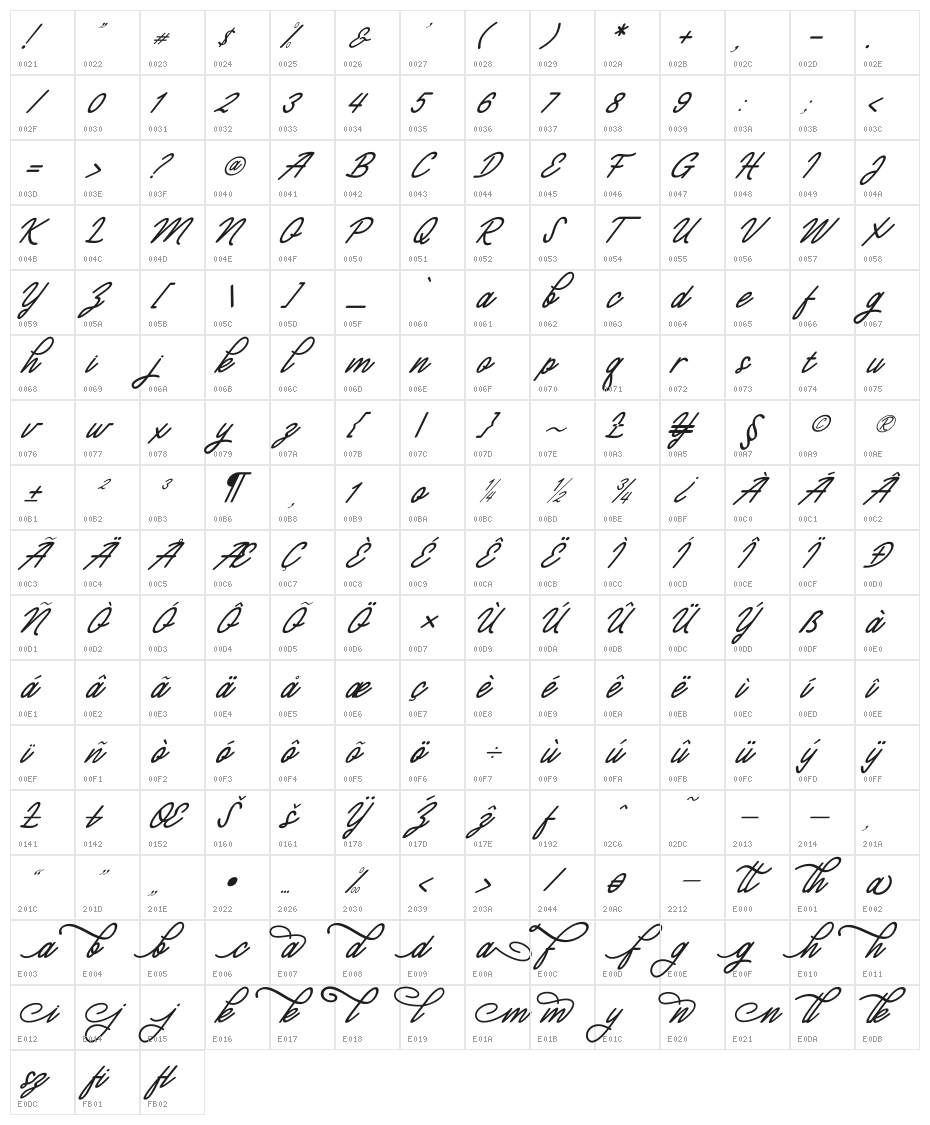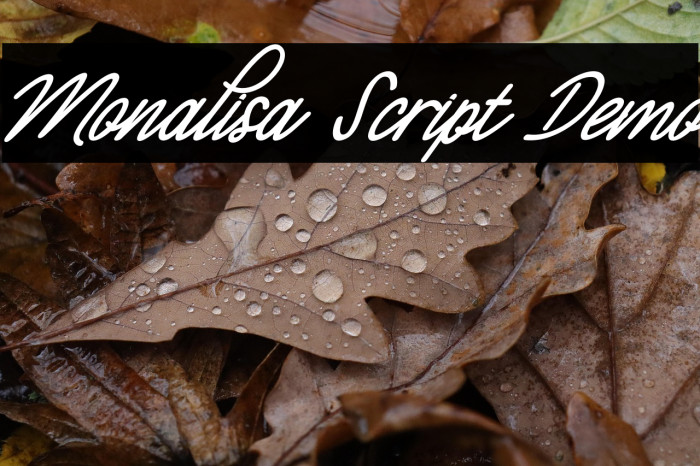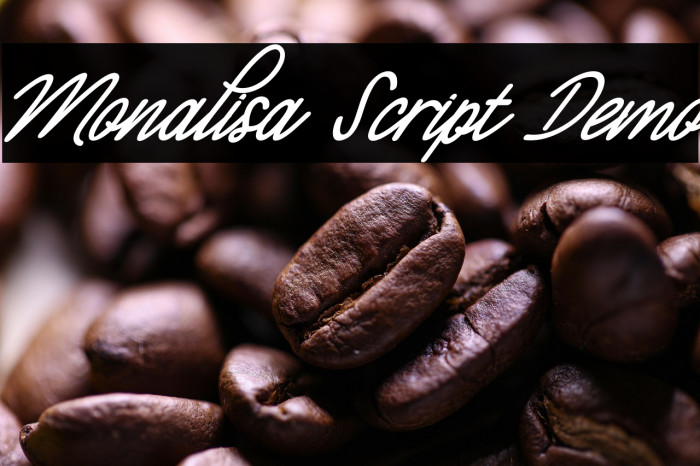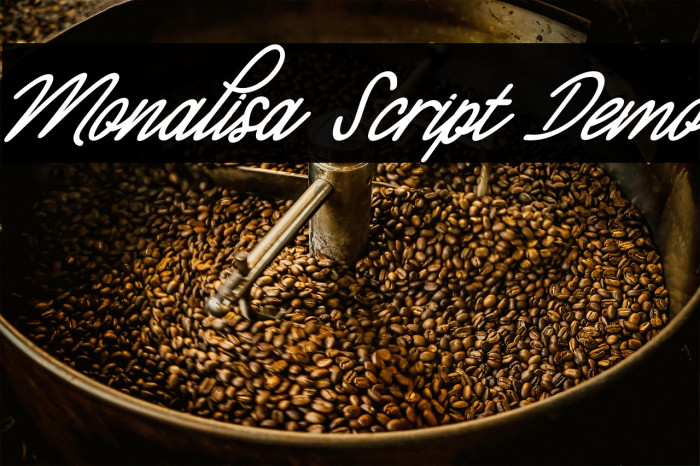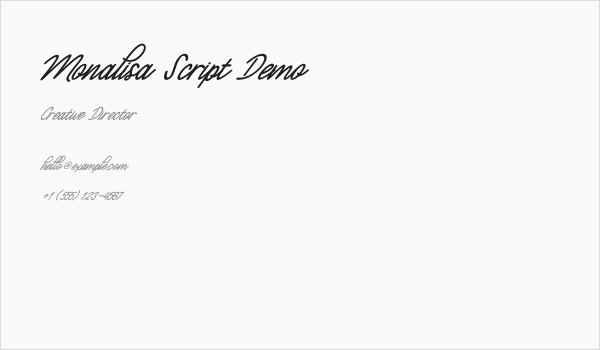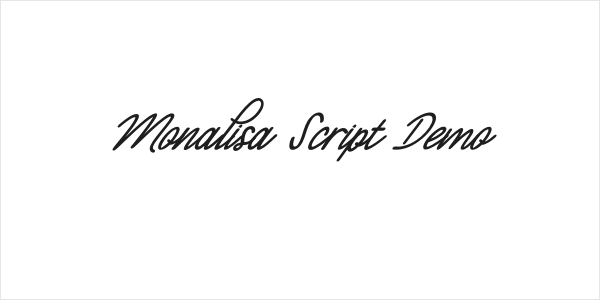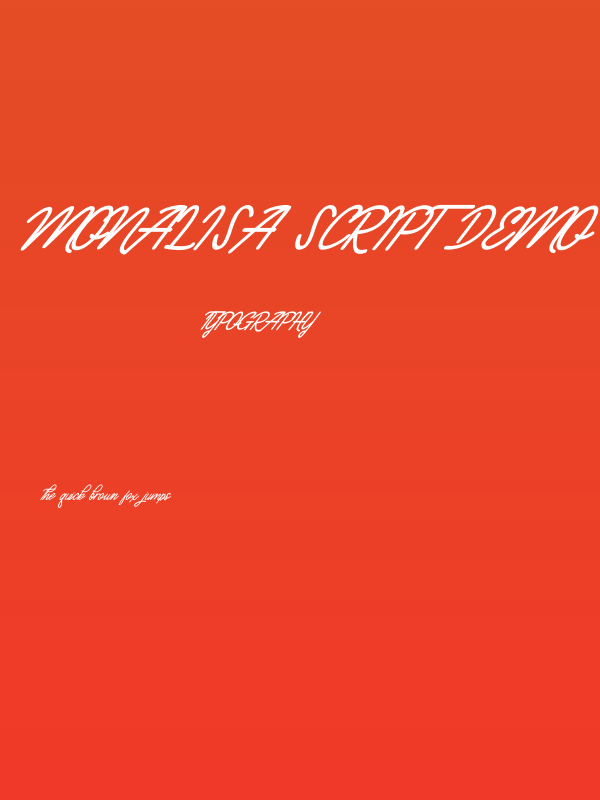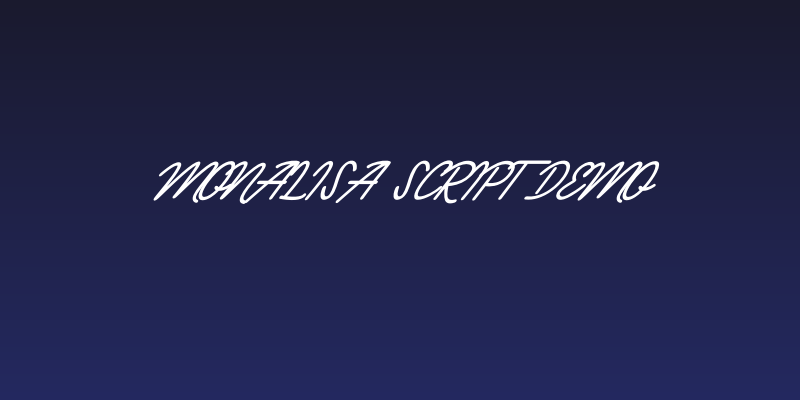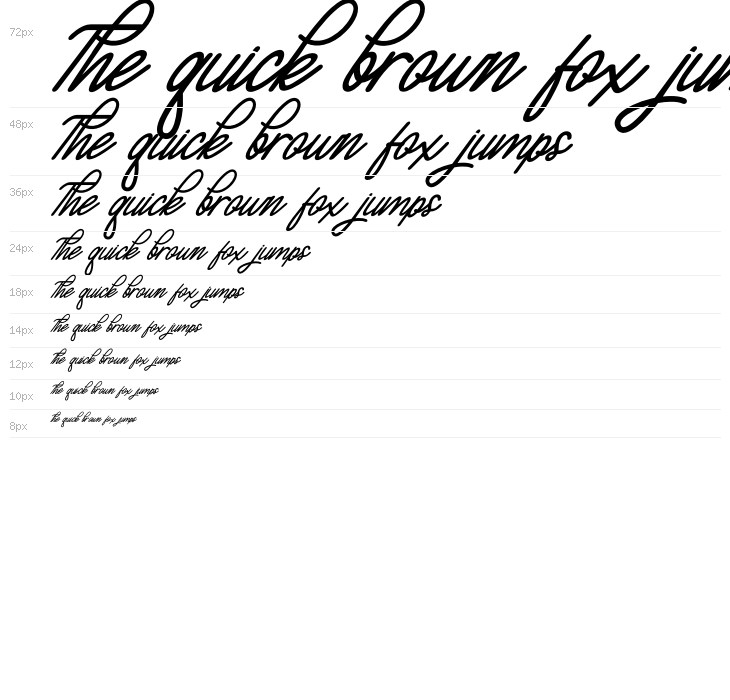
Monalisa Script Demo Font
Monalisa Script Demo Description
This elegant script font features a flowing, cursive style with a high degree of slant, giving it a dynamic and sophisticated appearance. The characters are interconnected, creating a seamless and fluid look that mimics natural handwriting. The strokes are smooth and consistent, with a medium contrast between thick and thin lines, adding to its graceful aesthetic. The uppercase letters are ornate and slightly larger than the lowercase, which are more restrained but equally stylish. The numerals and special characters maintain the same fluidity, ensuring a cohesive design throughout. This font exudes a sense of elegance and formality, making it ideal for projects that require a touch of sophistication.
| Overall Style | Elegant |
| Use Case | Logos, Invitations, Branding |
| Proposed Projects | Ideal for wedding invitations, elegant branding, personal signatures, and upscale packaging. |